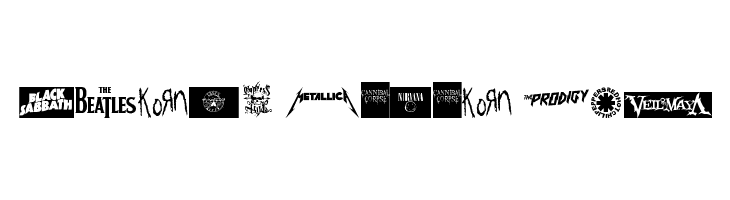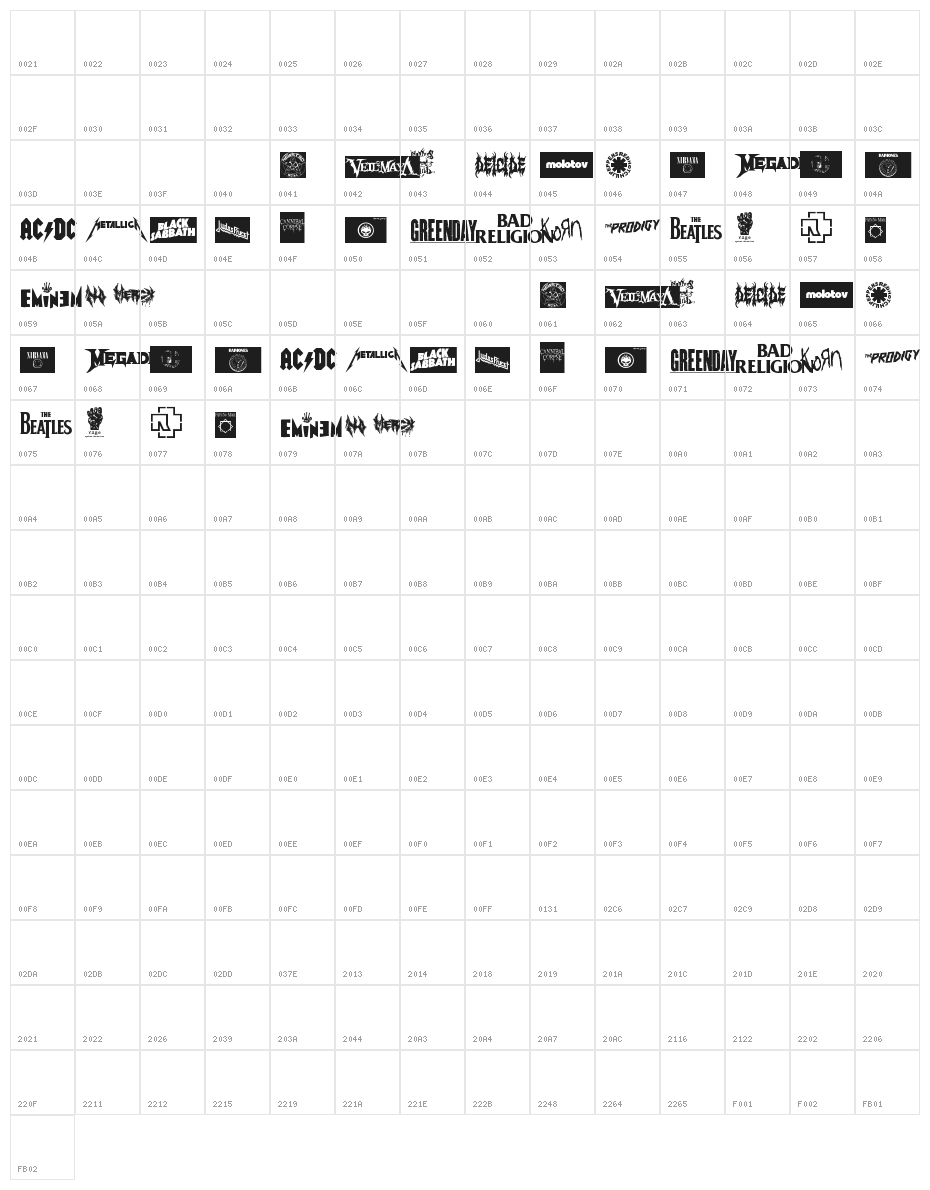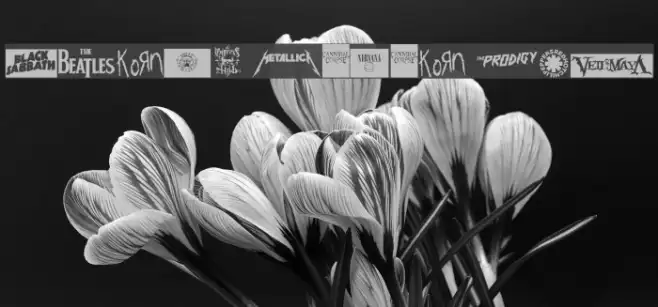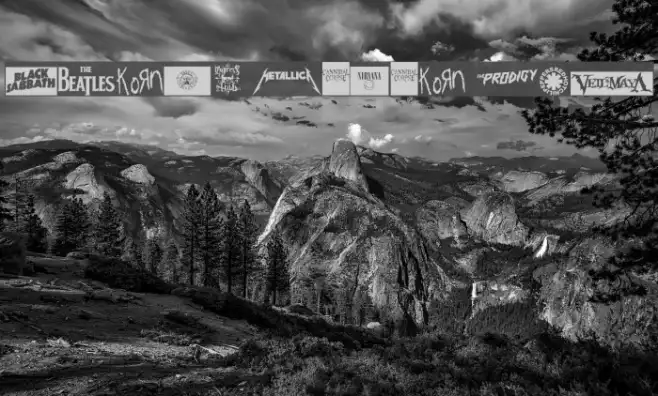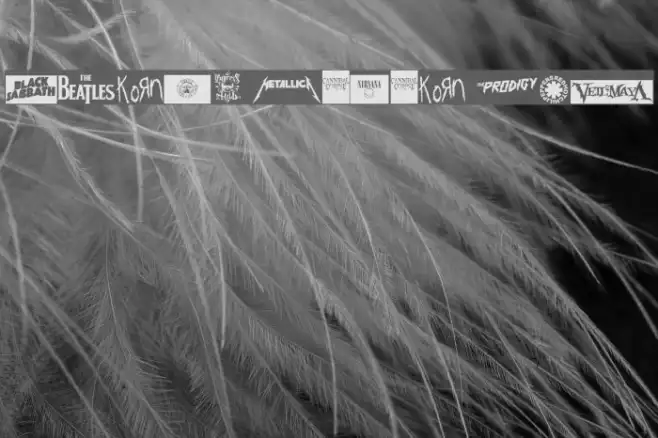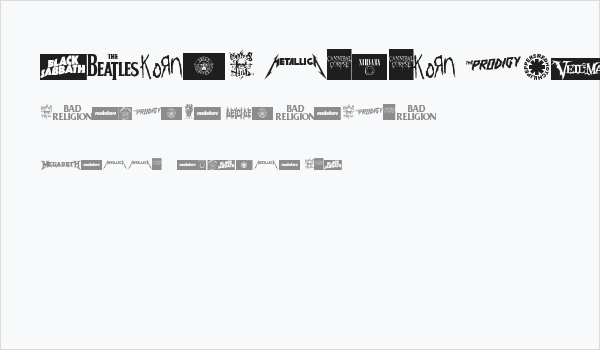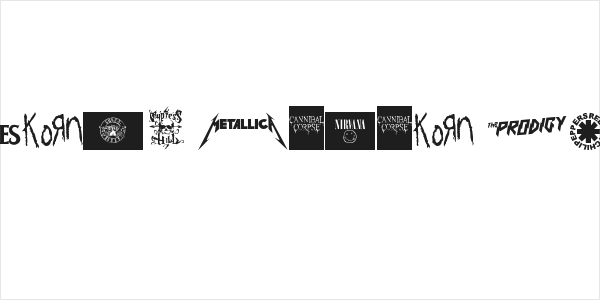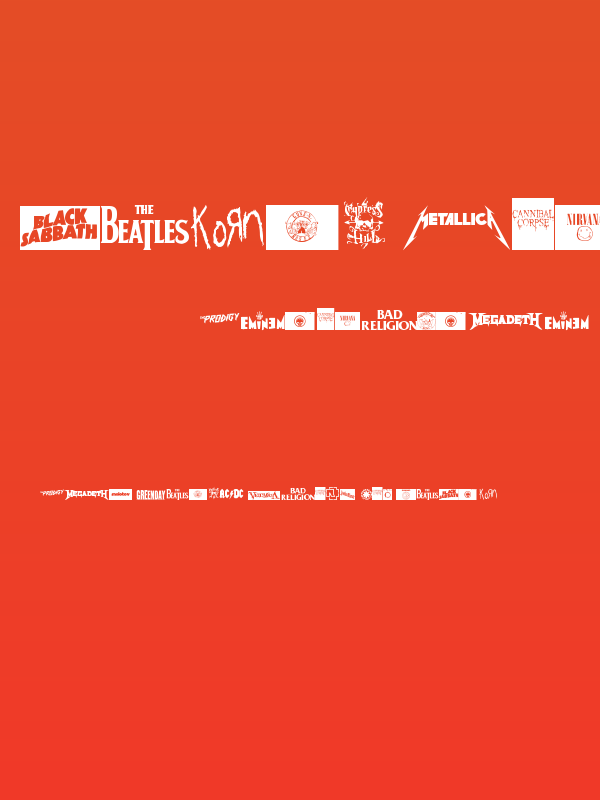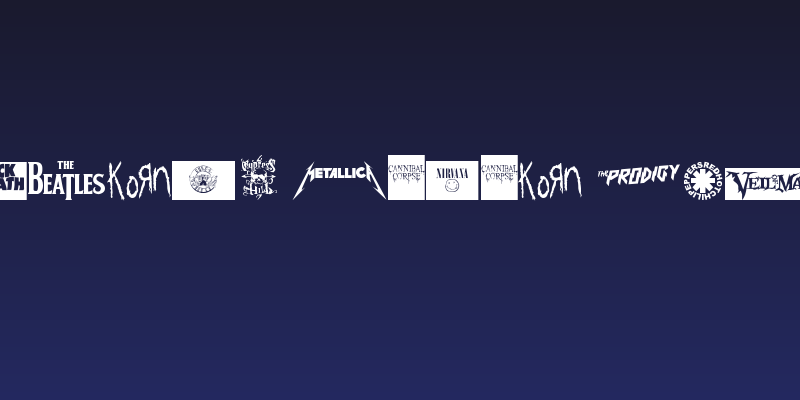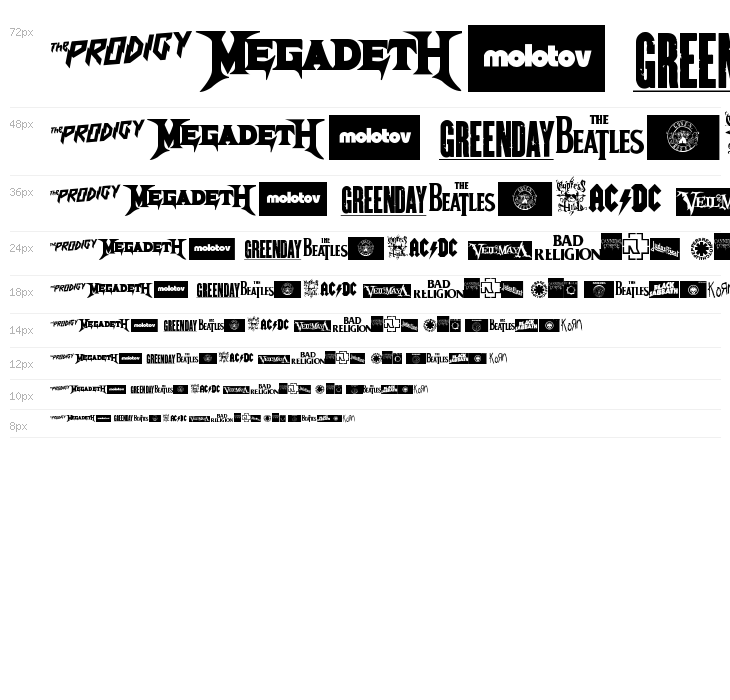
MUSIC LOGOS TFB Font
MUSIC LOGOS TFB Description
A decorative and eclectic collection of letterforms inspired by iconic music band logos, each character mimicking a different band's signature style. The glyphs are highly stylized, with varying weights, widths, and design motifs, resulting in a visually diverse and playful set.
| Overall Style | Decorative, Playful, Eclectic |
| Use Case | Logos, Headlines, Posters, Themed Graphics |
| Proposed Projects | Music event posters, fan merchandise, themed party invitations, parody artwork, creative headlines. |